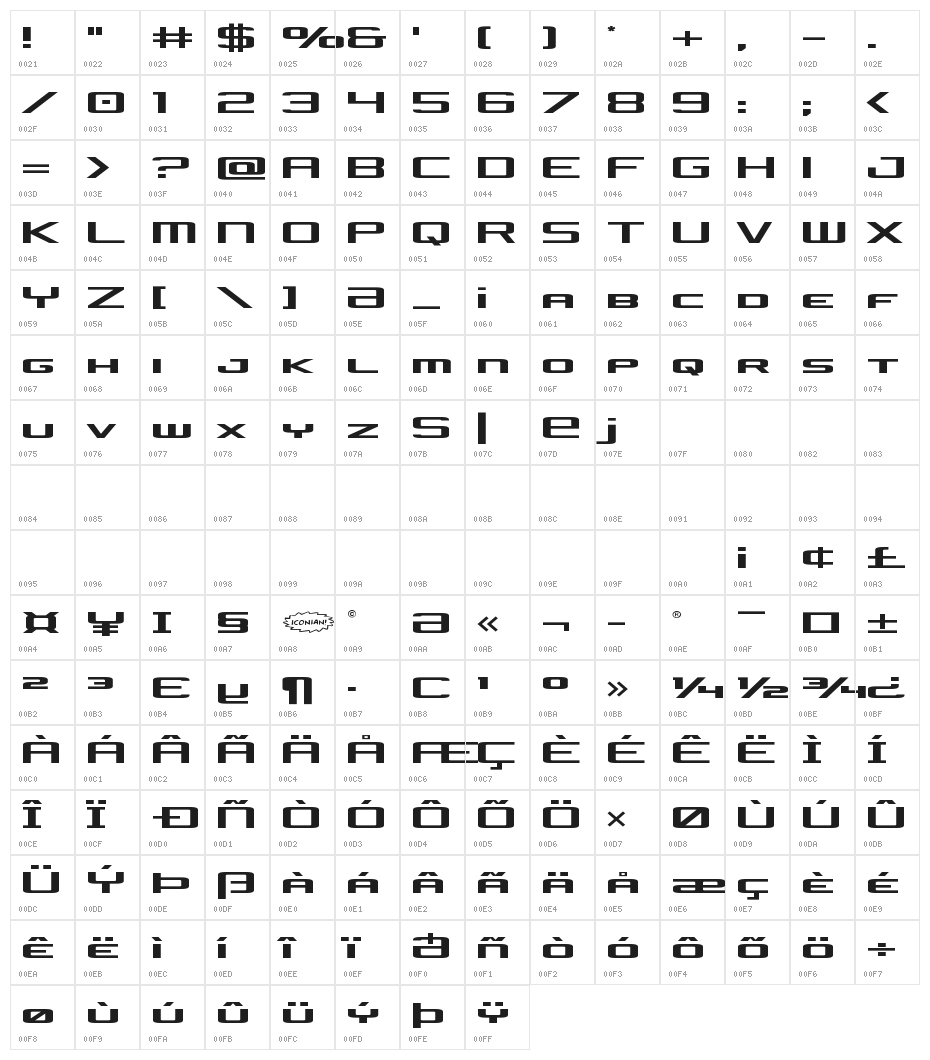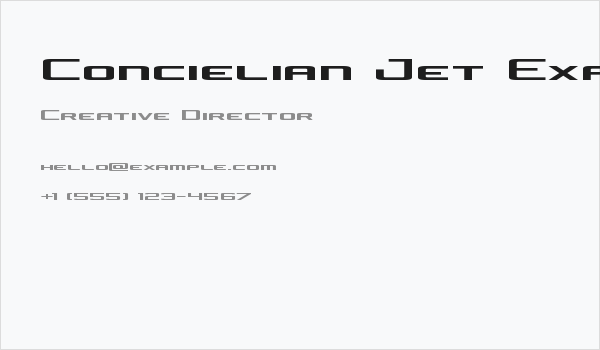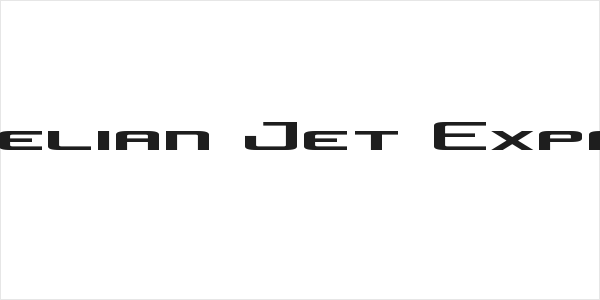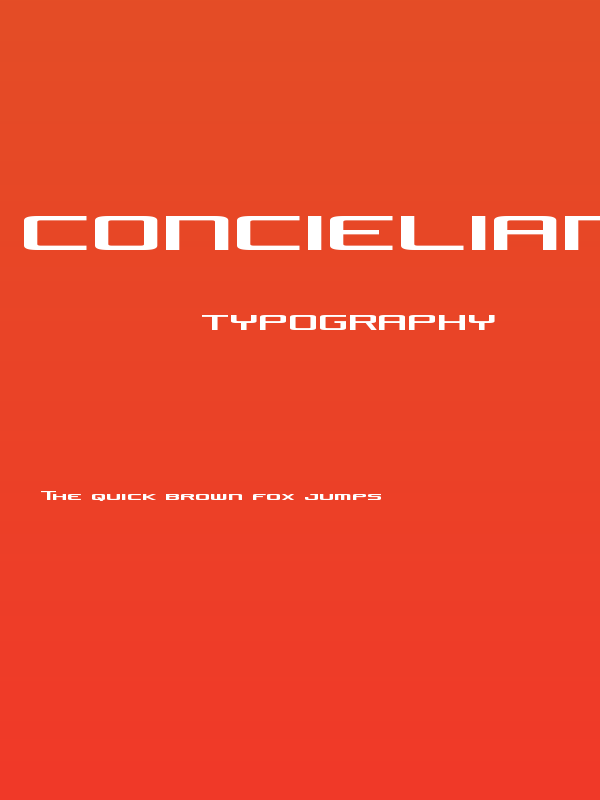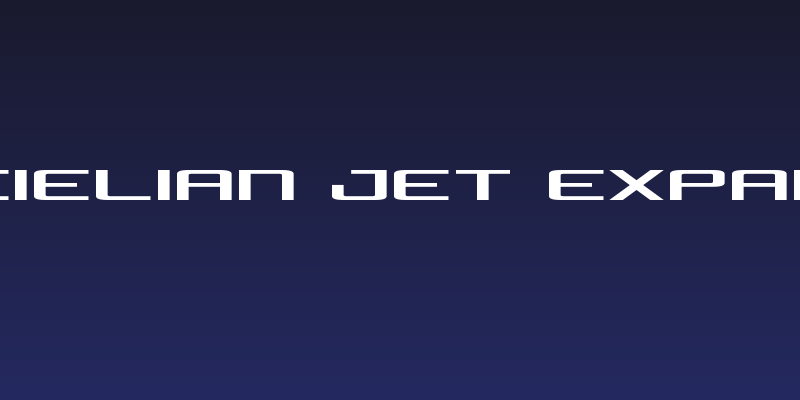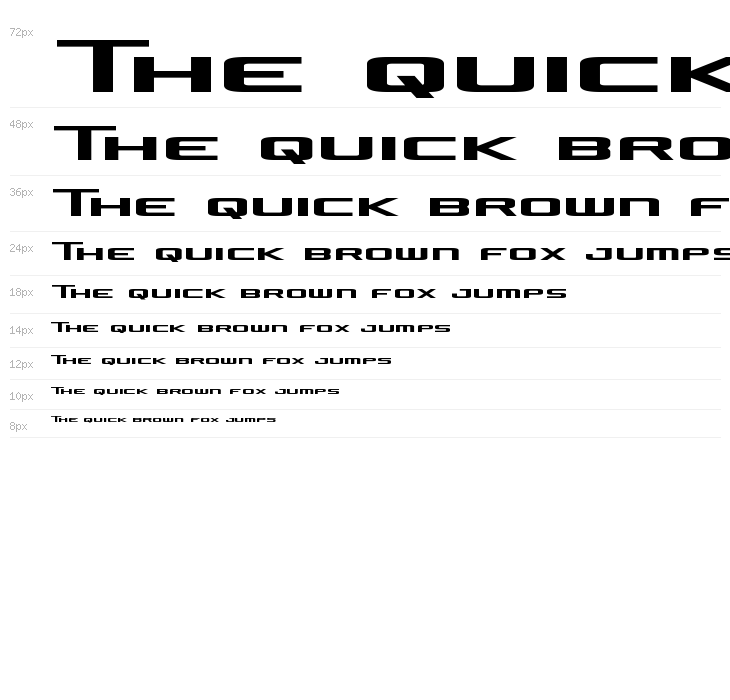
Concielian Jet Expanded Font
Concielian Jet Expanded Description
This font exhibits a futuristic and geometric design, characterized by its bold and expanded letterforms. The uppercase and lowercase letters maintain a consistent width, giving it a uniform appearance. The characters are distinctly angular with sharp edges, providing a modern and sleek look. The numbers and special characters follow the same design principles, ensuring a cohesive style throughout. This font's expanded width and bold strokes make it highly legible and impactful, suitable for various design applications.
Proposed ProjectsIdeal for technology branding, sci-fi themed projects, video game interfaces, and modern advertising.